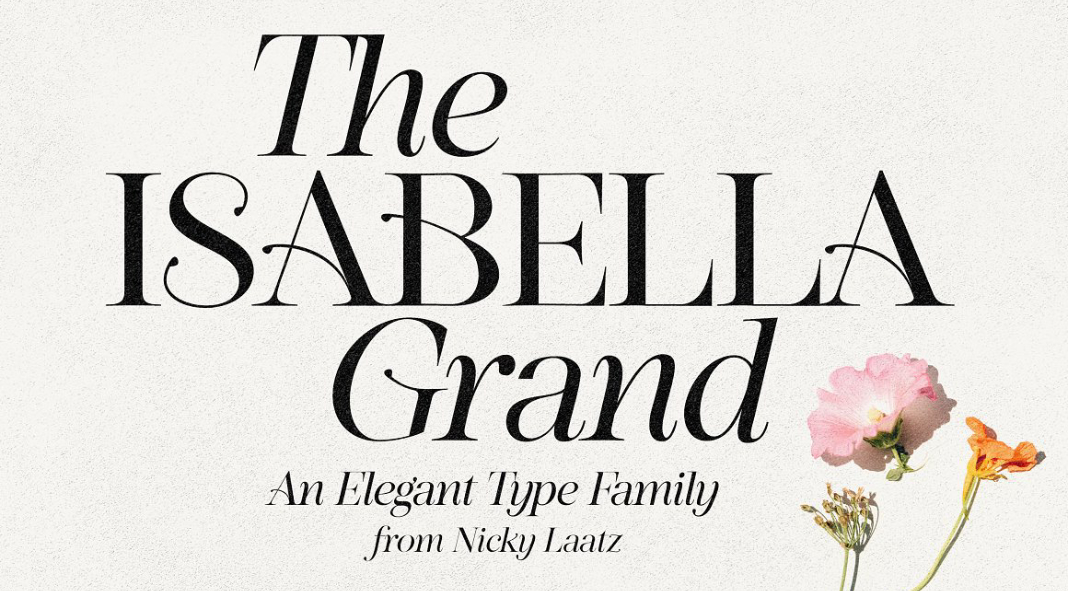
Take a look at Isabella Grand, a stylish serif typeface for elegant typographic designs.
Designed by Nicky Laatz, Isabella Grand is the very epitome of style and grace. The typeface has two distinct styles, Regular and Italic, that can be used together or separately for maximum versatility. Its serif features a unique ‘f’ that makes it stand out from other fonts…..as Isabella Grand always seeks to excel above its peers! Alternate characters are also available with a regular ‘f’, as well as an extra font style imbued with classic elegance for projects demanding something subtler.
The Italic font style is charming, seductive, and graceful – the ideal complement to its more serious serif counterpart. For those seeking an alternative look for their text, OpenType Alternates provide a range of options that can be easily accessed through Opentype-capable software.
To access the stylish “ti” in italics, you’ll need to activate your Opentype Ligatures. Their double-letter ligature feature will provide extra flair and elegance to your typography! Keep in mind that only software with an Opentype capability can use these features. We recommend professional software such as Adobe Photoshop, InDesign, or Illustrator.
The expansive character set is suitable for multiple languages, such as Danish, English, French, German, German (Switzerland), Italian, Low German Luxembourgish Norwegian Bokmål, Norwegian Nynorsk Portuguese Swedish, and Swiss German.